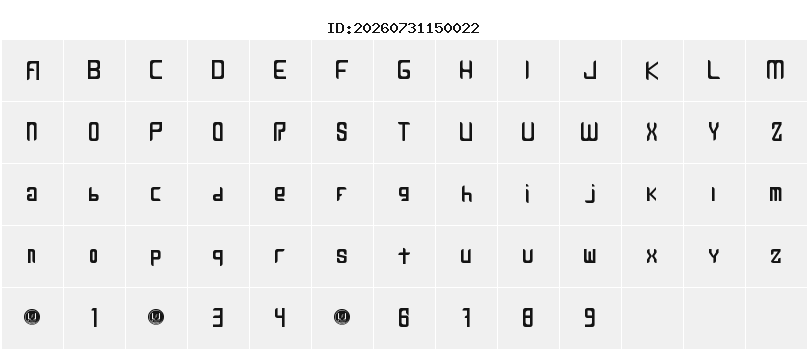
Leven Preview
• Font Name: Leven
• Full Font Name: Leven - LJ-Design Studios Regular
• Version: Version 1.00 January 29, 2015, initial release
• Designer: Luis Jaramillo
• Manufacturer: LJ-Design Studios
• Description: Leven Fonts Groups, By LJ-Design Studios For Leven Logo
About Leven.ttf
Leven.ttf is a modern, elegant sans-serif font designed for ultimate readability and visual harmony. Perfect for branding, headlines, web design, and print materials.